Cross stitch font styles add charm and creativity to embroidery, needlework, and digital design. Whether you’re working on a project, crafting a monogram, or designing an alphabet, the right font elevates your piece. Explore free cross stitch fonts and detailed alphabet patterns. These options blend tradition with modern style, giving your work a unique touch.
Free Cross Stitch Fonts for Easy DIY Projects
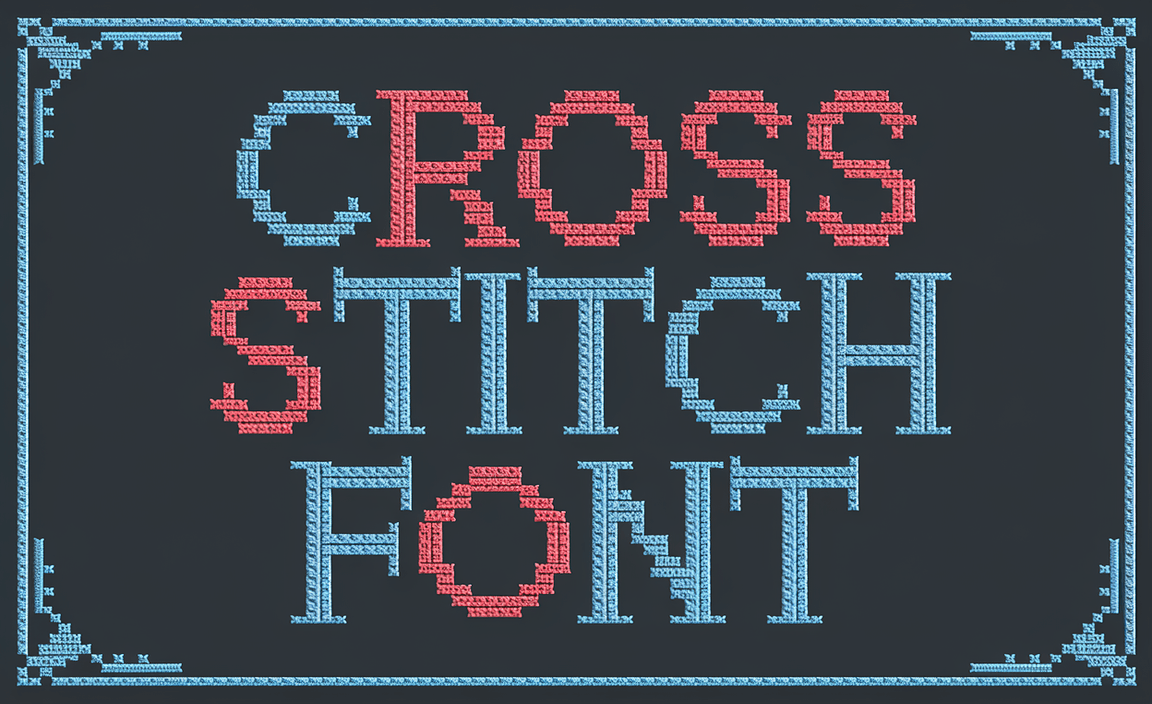
A cross stitch font mimics the look of stitched letters, making it perfect for embroidery, sewing, and crafting. These fonts resemble stitching patterns, often appearing pixelated to replicate traditional cross stitch patterns. They are widely used in fabric designs, handmade pieces, and digital cross stitch projects.
1. XStitch Regular
A simple yet classic font that captures the essence of cross stitch alphabet styles.
2. Embroided Pixel
This font mimics traditional stitching, ideal for sewing patterns and monograms.
3. Needlepoint Script
A stylish font that adds elegance to embroidery projects and free patterns.
4. Handmade Stitch
Perfect for Christmas, Easter, and holiday-themed designs with a handmade feel.
5. Threaded Letters
A detailed and intricate alphabet cross font for craft projects and magazine layouts.
How to Use Cross Stitch Fonts
Cross stitch fonts work for various creative applications:
- Embroidery Designs: Stitch alphabets for personalized fabric projects.
- Sewing Patterns: Use alphabet patterns to add text to handmade pieces.
- Crafts & DIY Projects: Create unique monograms for gifts, banners, and décor.
- Etsy Shops & Online Cross Designs: Sell stitched text designs for home decoration.
- Christmas & Easter Cards: Add stitched words to festive greeting cards.
Choosing the Right Cross Stitch Alphabet
When selecting a font for your cross stitch project, consider:
- Pattern Clarity: Choose a font with well-defined stitches.
- Letter Style: Whether uppercase letters, lowercase, or a mix.
- Fabric Compatibility: Select fonts suitable for different stitching techniques.
- Border & Design Elements: Consider patterns with decorative stitching.
Tools & Resources for Cross Stitch Fonts
- Font Generators: Use online cross stitch font generators to create custom stitched text.
- Free Pattern Websites: Download stitch patterns for alphabet designs.
- Thread & Color Selection: Experiment with different thread colors for vibrant results.
- Magazines & Books: Explore cross stitch magazines for new design inspirations.
- Alterations & Customization: Modify fonts for a unique style tailored to your project.
Can I Use Cross Stitch Fonts For Sewing Projects?
Yes, many stitch fonts are suitable for sewing and fabric-based crafts.
How Do I Create A Custom Cross Stitch Alphabet?
Use a font generator or stitch patterns to design a personalized alphabet cross style.
What Type Of Thread Works Best For Cross Stitch Fonts?
Embroidery floss and cotton threads are popular choices for stitched text designs.
Are Cross Stitch Fonts Suitable For Digital Designs?
Yes, cross stitch fonts can be used for digital embroidery patterns, photo projects, and painting effects.
Can I Use Cross Stitch Fonts For Monograms?
Absolutely! Many cross stitch fonts include monogram styles perfect for personalized creations.